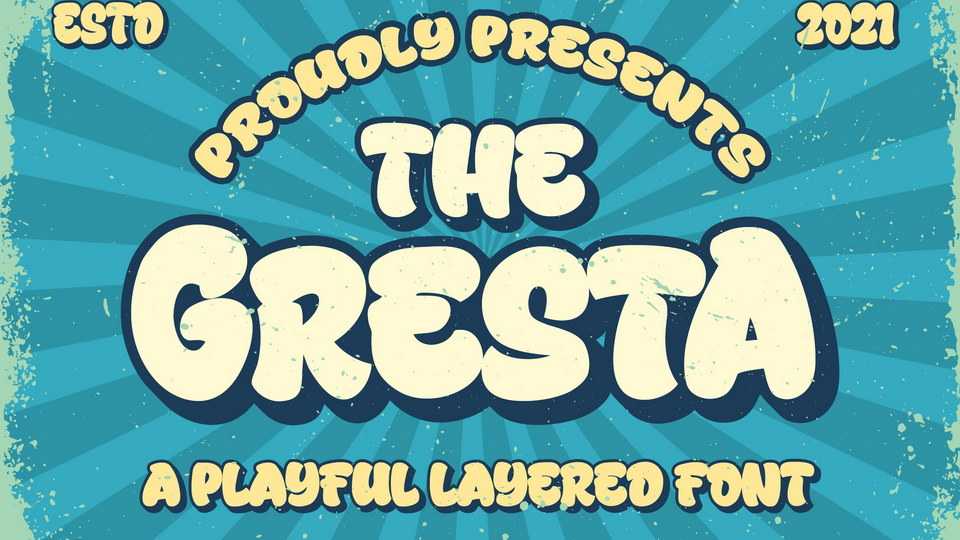
Download Gresta font, fun and friendly layered display typeface. Gresta is inspired by playful style with a fun theme very good for retro, kids and cartoon theme design.
Designer: Blankids Studio